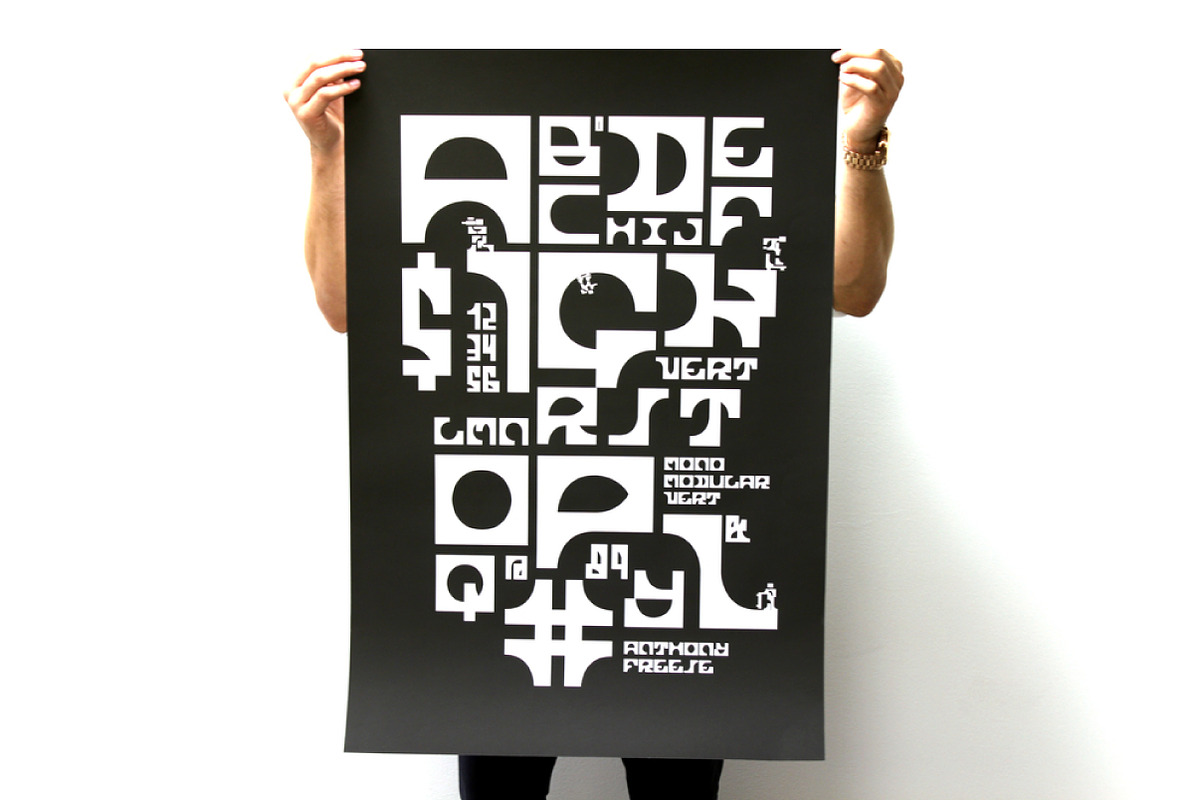
Vert Display Font
Vert Display Font by Anthony Freese is a font selected for branding, posters, packaging, typography.
Why Vert Display Font is worth a look
Vert Display Font by Anthony Freese fits naturally into Branding, posters, packaging, typography.